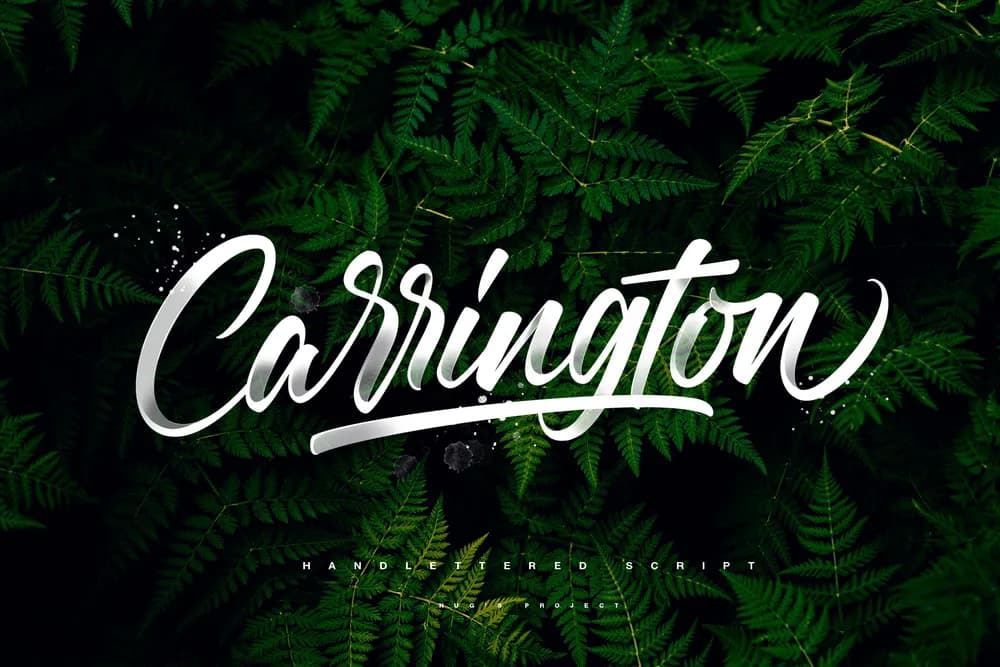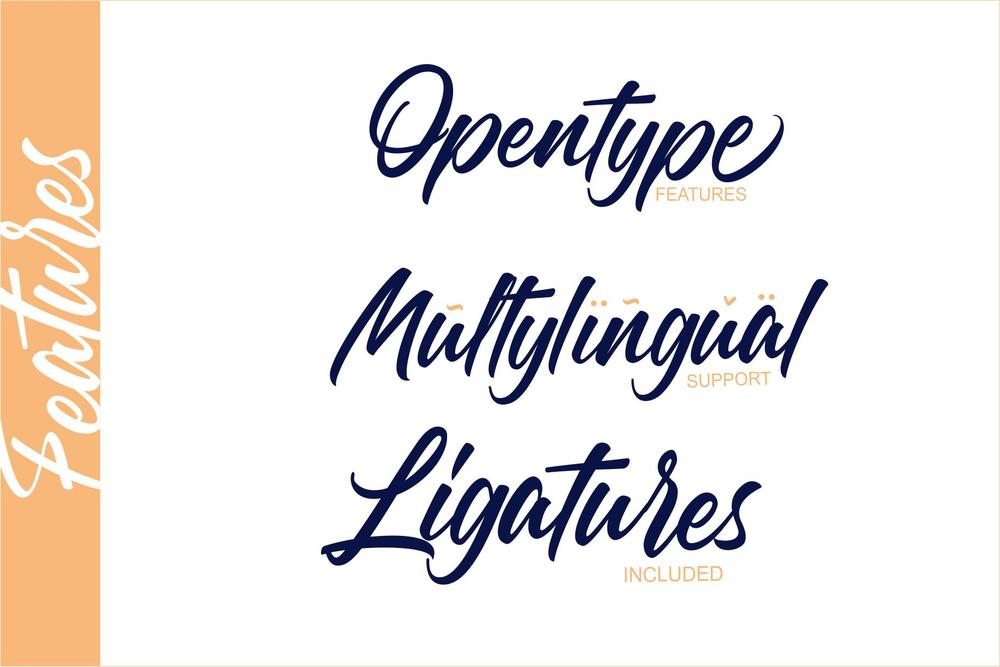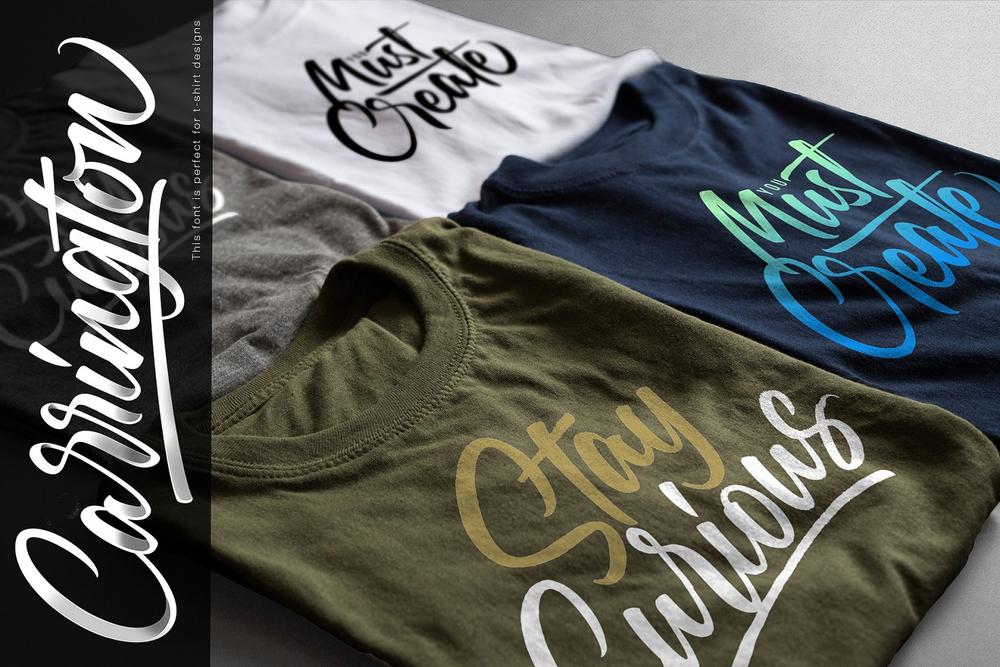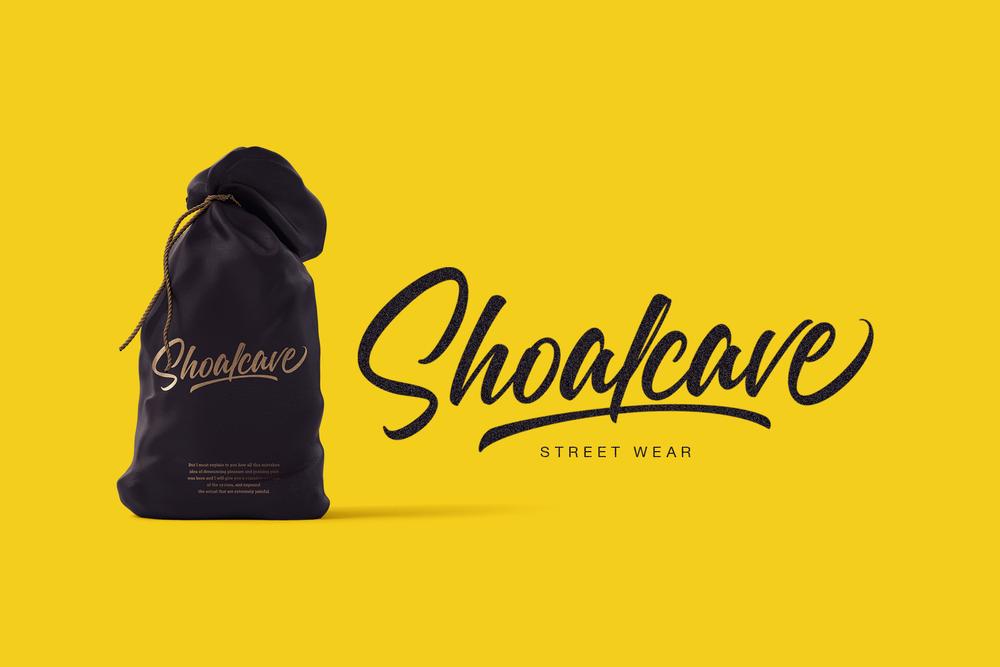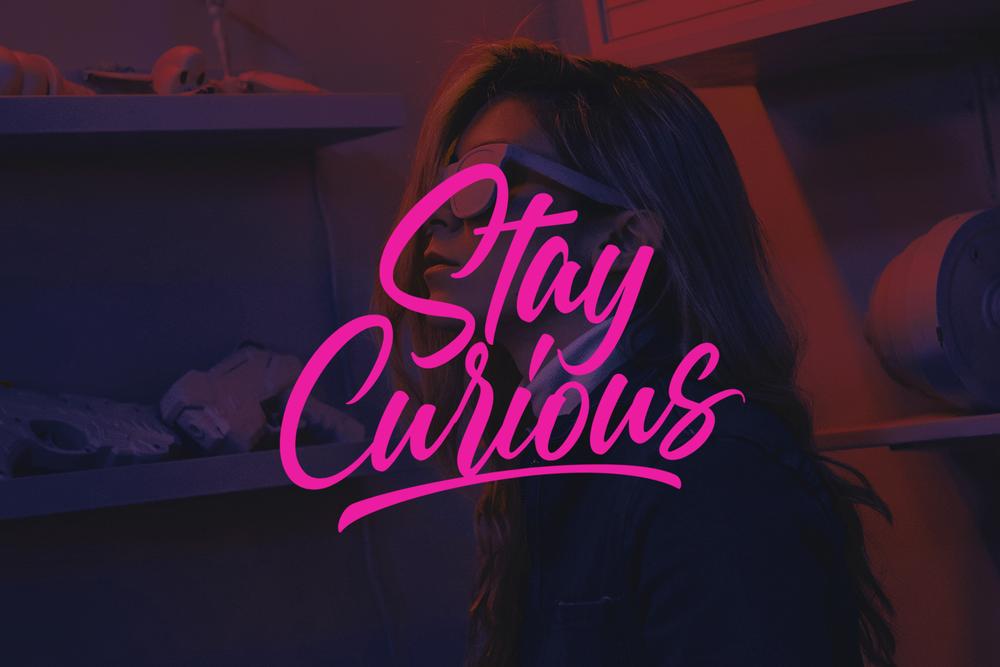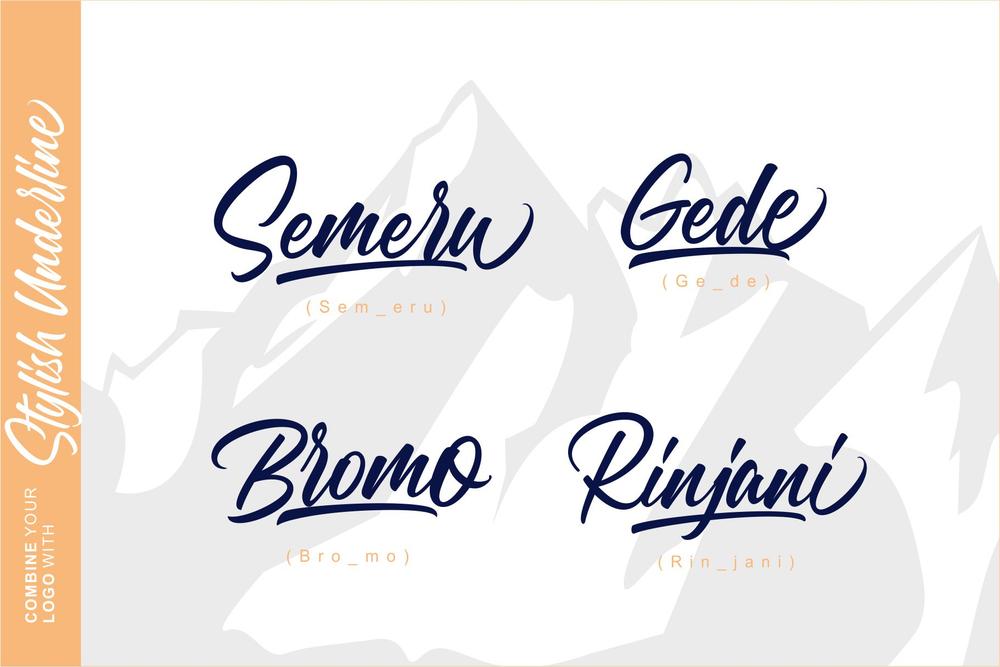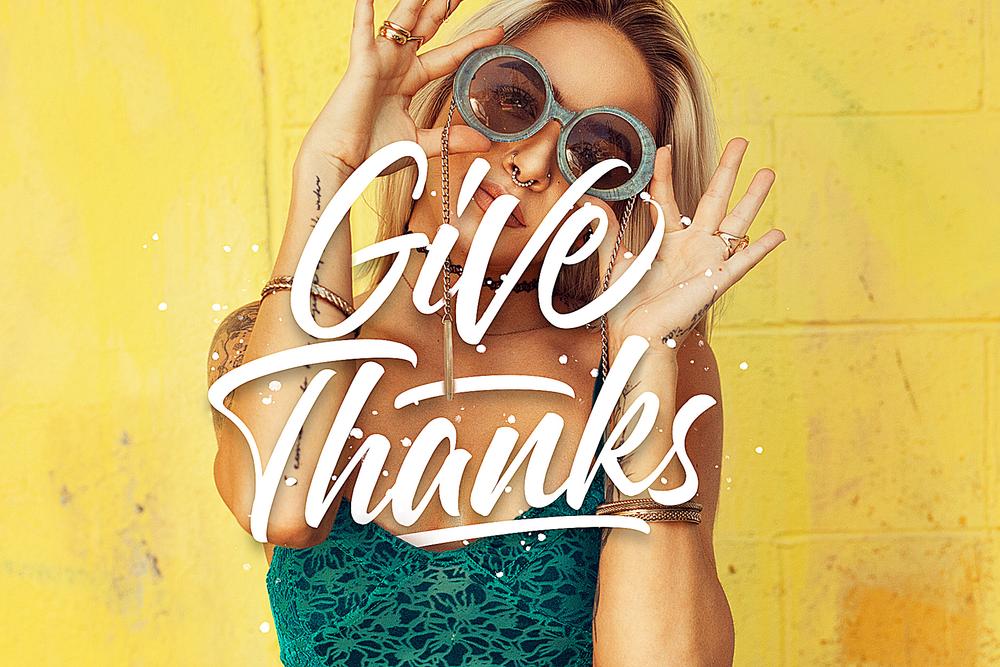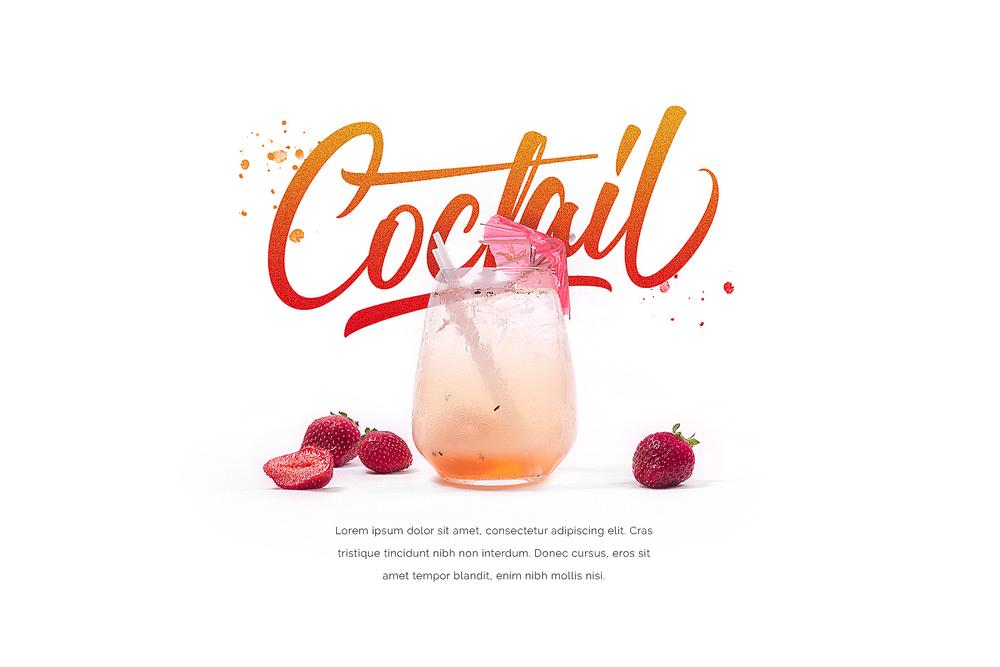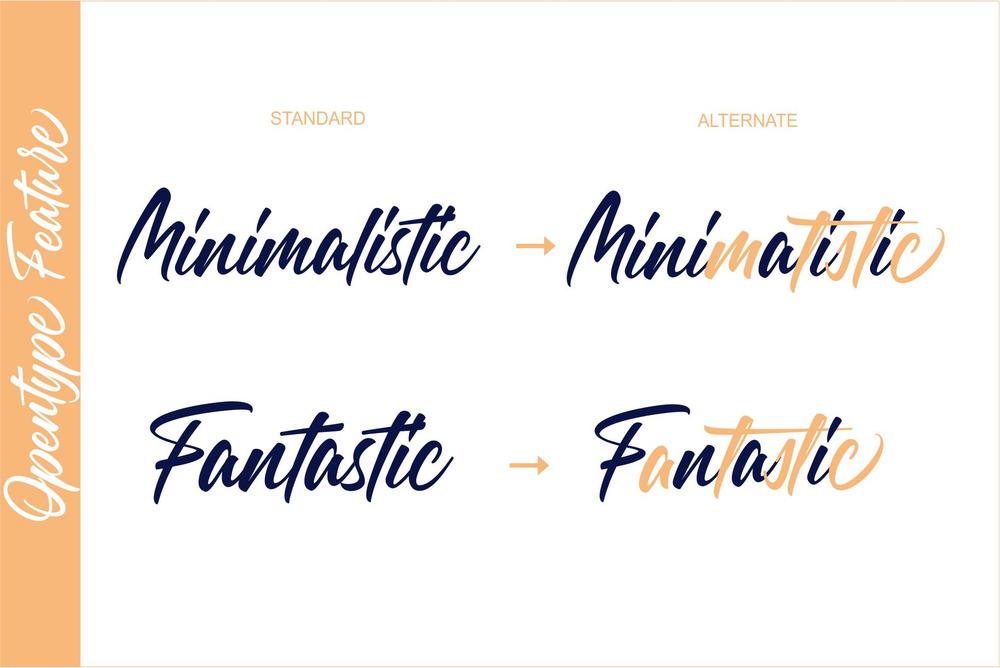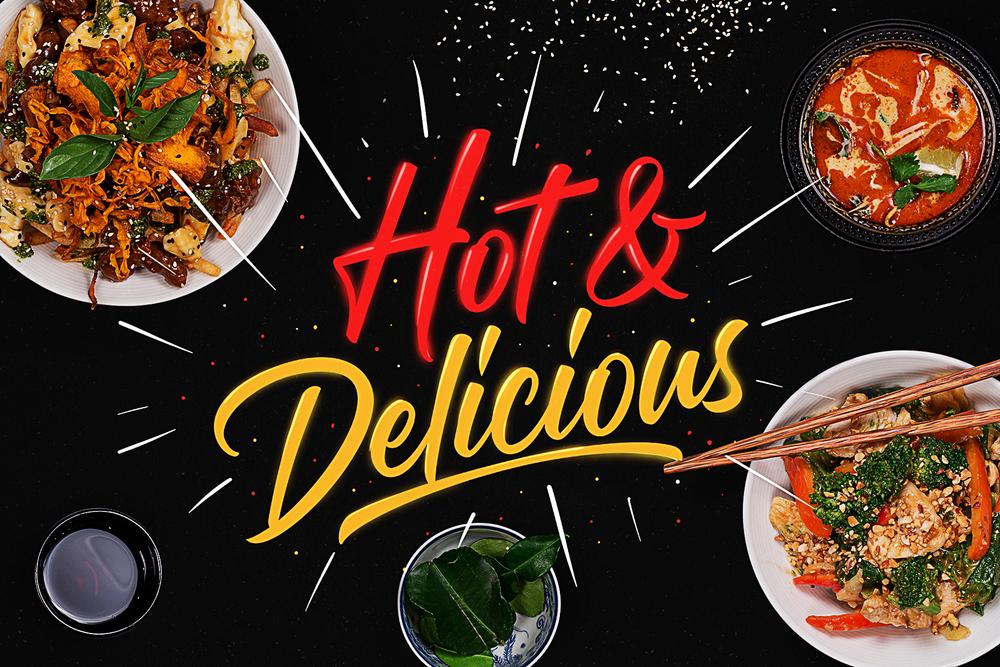
Carrington is a brush script font with a dynamic and energetic style. It can used for various purposes such as titles, signatures, logotypes, t-shirt designs, letterheads, signage’s, labels, newsletters, posters, badges, and every other design which needs an unique, striking font. How to access alternate glyphs? you can see it on this link ( http://goo.gl/1vy2fv) ☛ Stylish ligatures ☛ Alternates ☛ Opentype Features ☛ Numerals & punctuation ☛ Multilingual support 𝐅𝐨𝐫𝐦𝐚𝐭 : OTF, TTF, and WOFF.